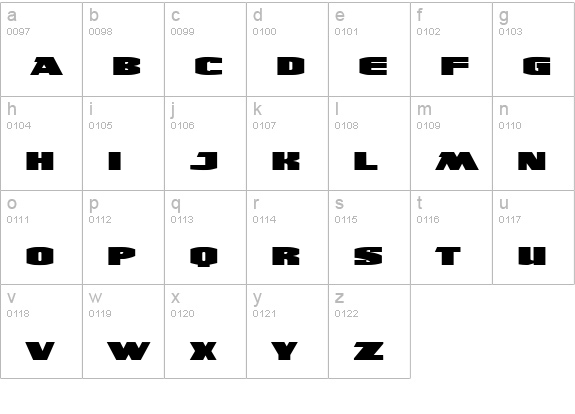
UltraViolent BB Font Details
Introducing UltraViolent BB, a bold and edgy font that will add a touch of intensity to any design project. With its sharp angles and aggressive letterforms, this font exudes a powerful and rebellious vibe. Whether you're creating a poster for a rock concert, designing a tattoo, or simply want to make a bold statement, UltraViolent BB is the perfect choice. Its strong presence commands attention and demands to be noticed. But what sets UltraViolent BB apart from other fonts is that it is not only visually captivating, but it is also freely available to download. That's right, you heard it correctly – this stunning font can be yours at absolutely no cost. Thanks to FontsMarket.com, you can easily access and download UltraViolent BB without having to spend a dime. Don't let budget constraints limit your creativity. With this free font, you can unleash your imagination and bring your designs to life. So why wait? Don't miss out on the opportunity to enhance your projects with the raw energy and boldness of UltraViolent BB. Download it now for free at FontsMarket.com and let your creativity run wild.